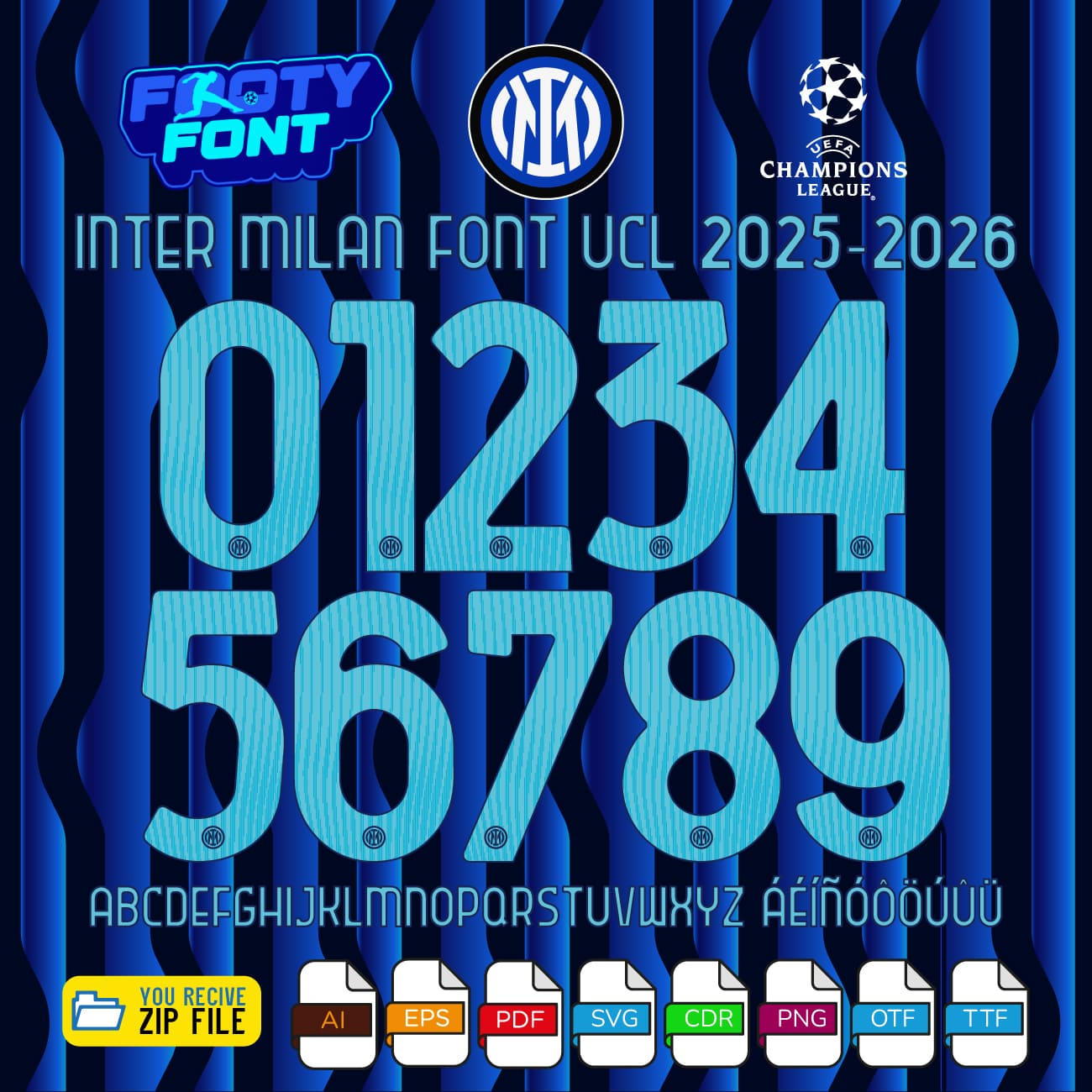
Inter Milan 2025–2026 UCL Font – Home Kit Edition Channel the power of the Nerazzurri with this premium font inspired by Inter Milan’s 2025-2026 UEFA Champions League home kit. Designed to replicate the bold blue-and-black aesthetic of the legendary San Siro nights, this typeface brings the club’s European identity to life. Worn by stars like Lautaro Martínez, Nicolò Barella, and Marcus Thuram, this font reflects the grit, elegance, and passion of Inter’s Champions League campaign. Whether you’re crafting custom jerseys, fan posters, or digital artwork, this kit gives you everything you need to create with confidence. ⭐ What’s Included Complete Font Package (Inter Milan 2025–2026 UCL Home Kit) ✔ OTF (OpenType Font) ✔ TTF (TrueType Font) Complete Vector Package Includes full A–Z alphabet and 0–9 numbers in: ✔ AI (Adobe Illustrator) ✔ EPS ✔ PDF ✔ CDR (CorelDRAW) ✔ SVG Separated Number Files Individual digits (0–9) in: ✔ PNG ✔ SVG ✔ PDF Start Designing Today Download instantly and start creating personalized jerseys, social media graphics, or fan merchandise that celebrates your favorite team. Whether you’re a professional designer or a passionate supporter, this font kit is built for creativity. ️ Compatible With Adobe Illustrator Adobe Photoshop CorelDRAW Figma Cricut & Silhouette (SVG/DXF) ⚠️ Fan Disclaimer This Inter Milan Font UCL 2025-2026 (Home Kit) is an independent, fan-inspired design and is not officially affiliated with Inter Milan, UEFA, any football league, or the official kit manufacturers. Why Fans Love It Use this font to bring the Nerazzurri style into your designs-whether for custom jersey graphics, fan merchandise, posters, or social media content. Authentic look inspired by Inter’s 2025-2026 UCL kit Easy-to-use files for Cricut, Photoshop, Illustrator, Figma Perfect for jerseys, posters, and fan art Instant download, no waiting